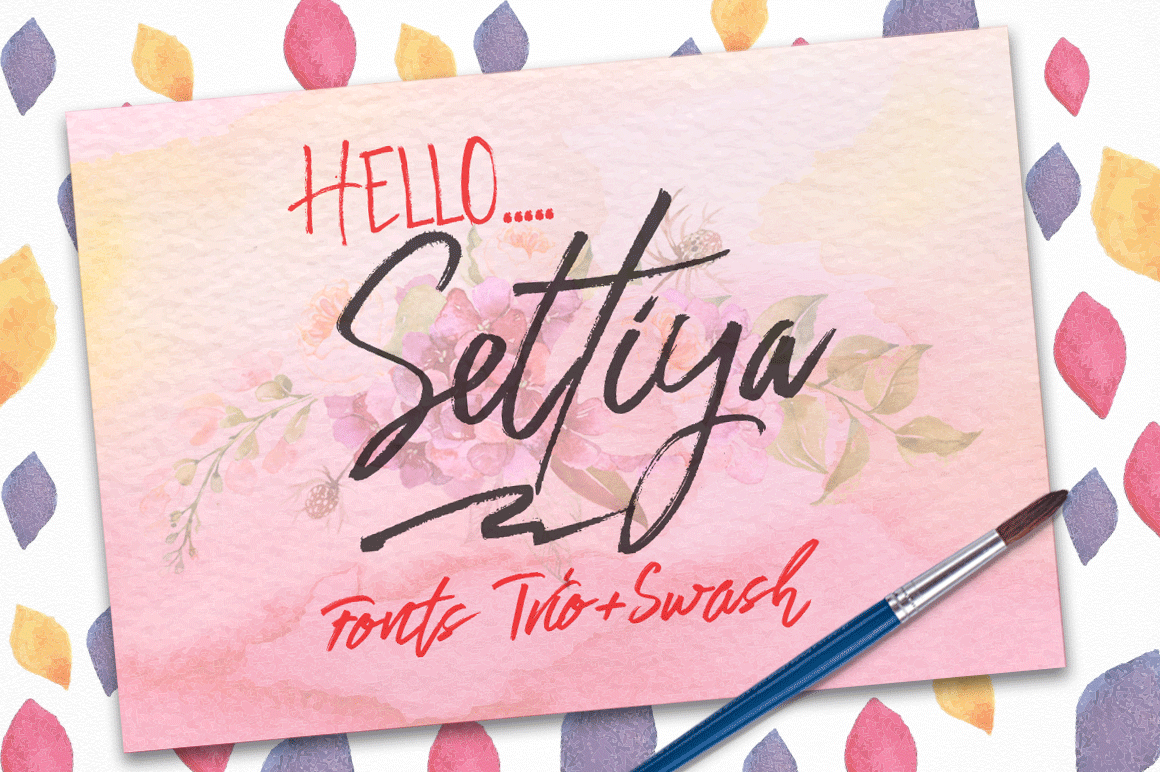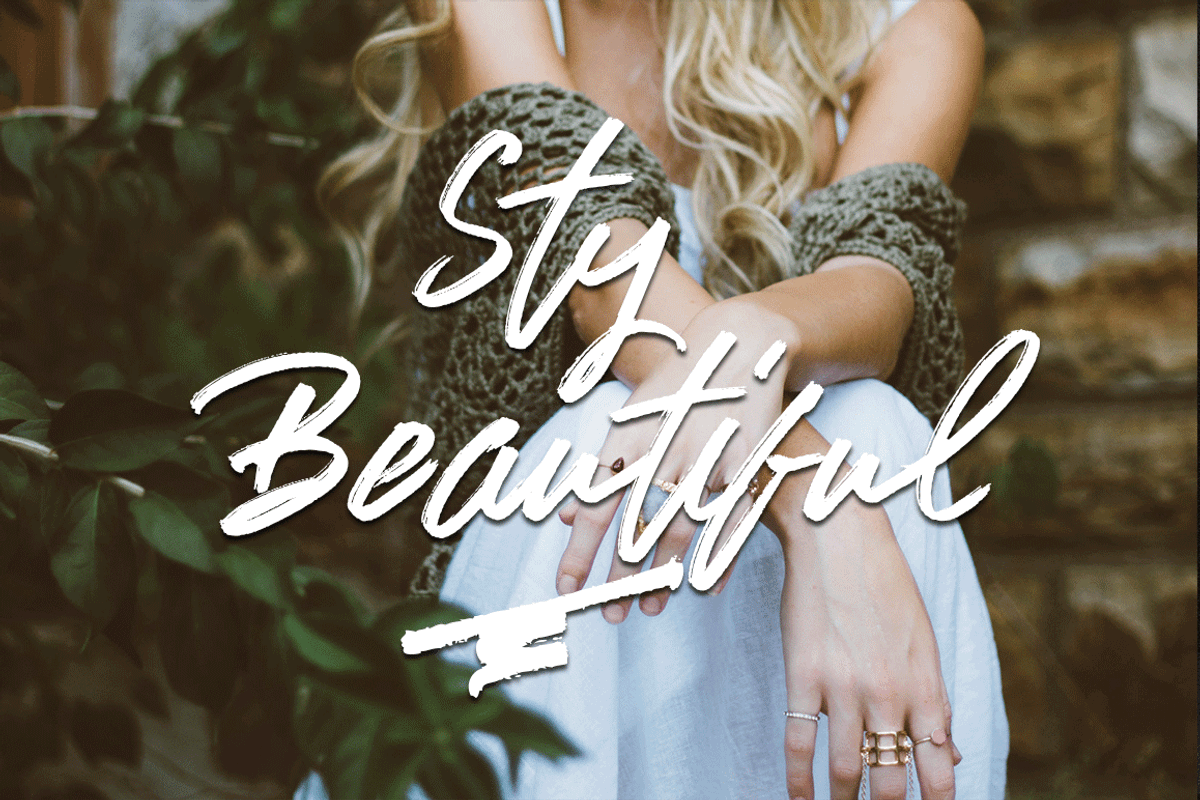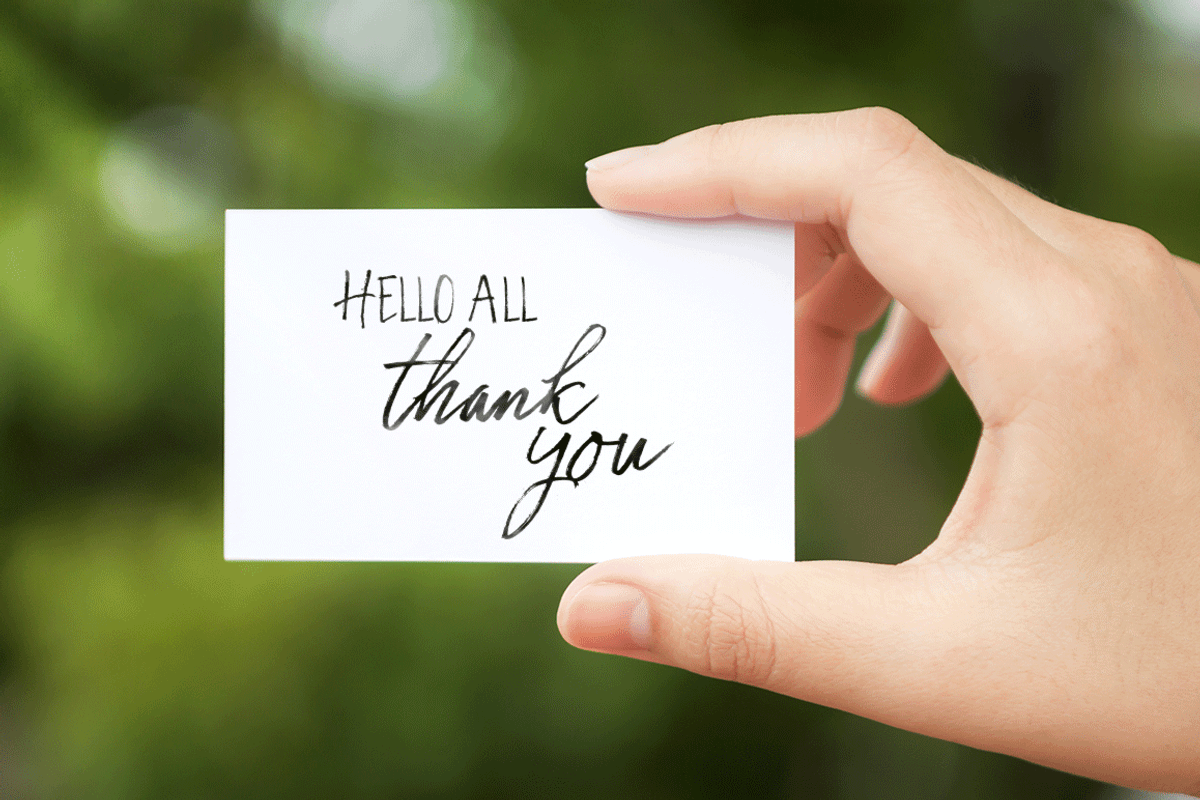
Settiya Fonts Trio+swash
Settiya (Fonts Trio+Swash)
Settiya (Fonts Trio+Swash) are three sets of fonts, it is that the fonts brush that has a different style. This is the perfect choice for personal branding project. Can be used for various purposes.such as headings, logos, wedding invitations, t-shirts, letterhead, lable, news, posters, badges etc. To enable the OpenType Stylistic alternates, you need a program that supports OpenType features such as Adobe Illustrator CS, Adobe Indesign and CorelDraw X6-X7.
Settiya is hand drawn letter script with and Lawercase Uppercase letters, numbers and various punctuation, ligature and Alternatives
Settiya Upcase is hand drawn letters that have just Uppercase letters.
Settiya Bold is a hand drawn letter script but it is not contiguous who have and Lawercase Uppercase letters, numbers and various punctuation.